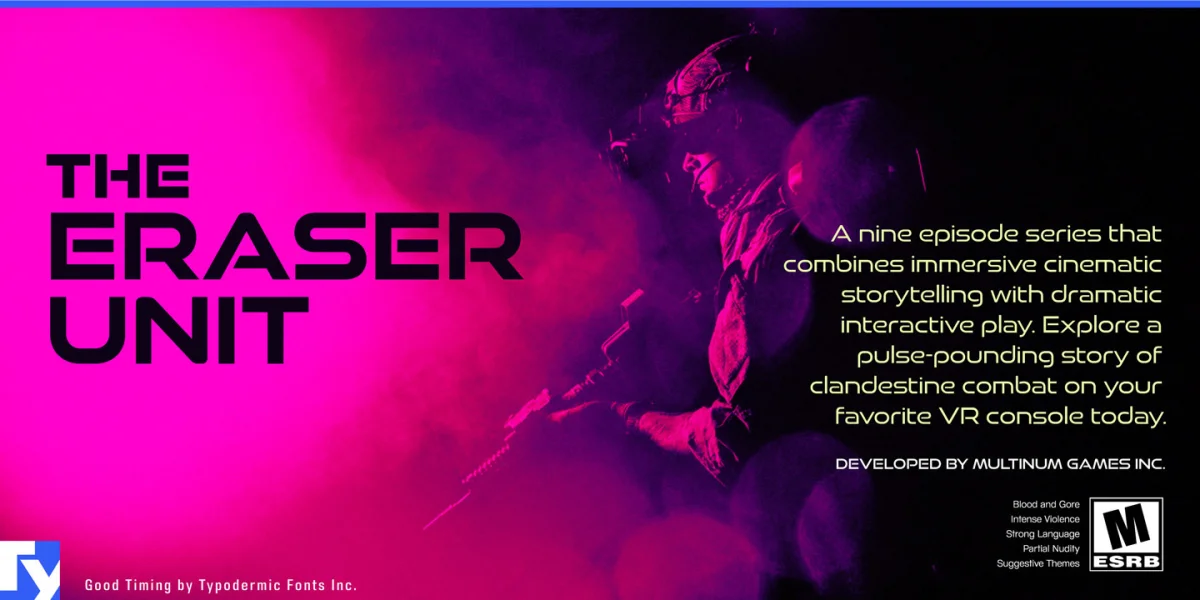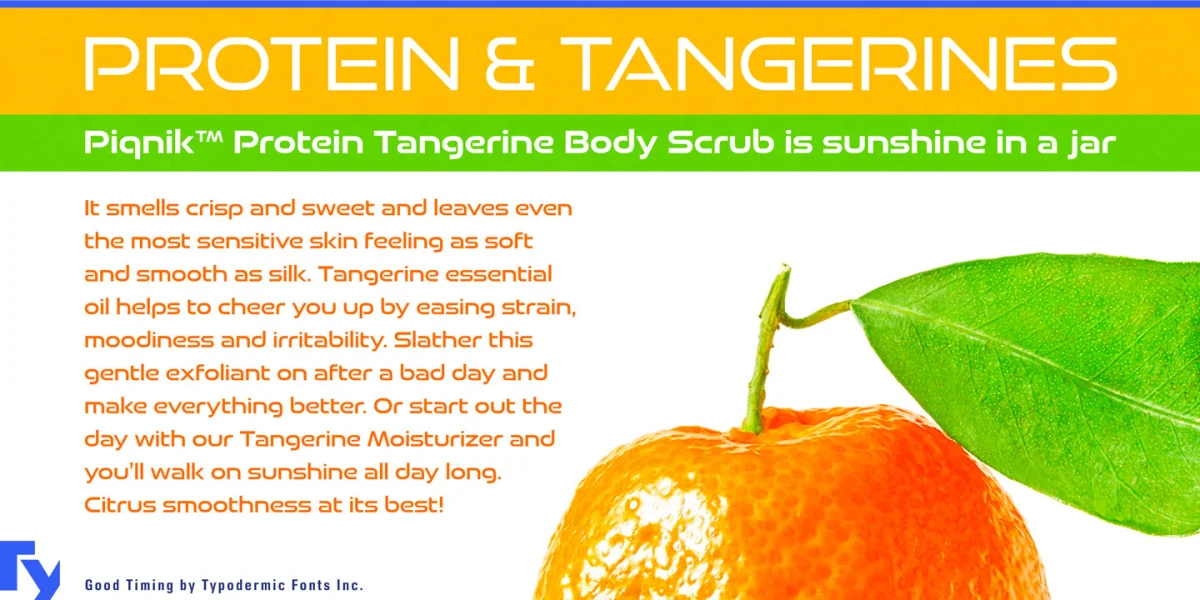
Good Timing is based on an ultramodern typeface called Good Times from 1998. This version has more streamlined capitals, a more dynamic weight range and a matching lowercase. Mathematical symbols, fractions, numeric ordinals, and monetary symbols are in good supply. Almost all current Latin-based languages are supported, including Vietnamese, Cyrillic languages, and Greek. This font includes a license that allows free commercial use: sometimes referred to as a desktop license. This allows you to install the font on a computer and use them to create posters, web graphics, game graphics, eBooks, t-shirts, videos, signs, logos and more. Read the license agreement for details. If you'd like to embed this font in an app, on the web or anything that's not covered by the desktop license agreement, visit the link below. You'll find distributors who offer several types of licenses, or you can contact me for help.